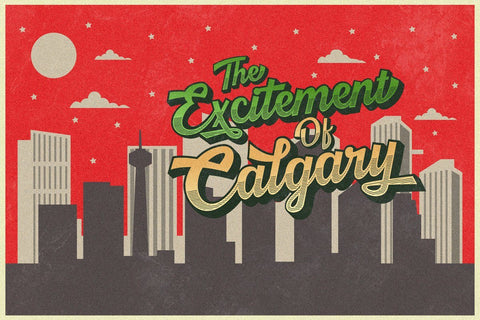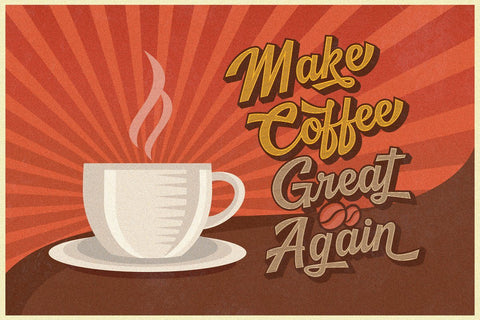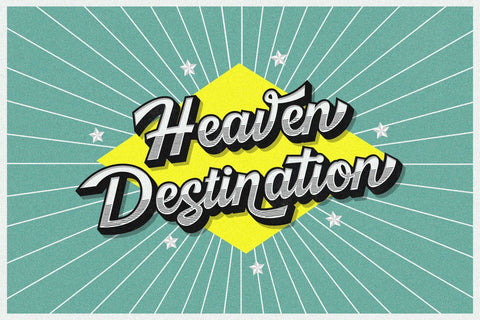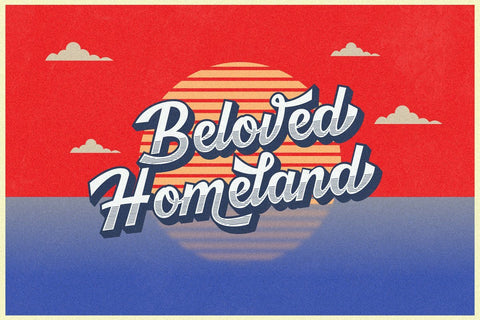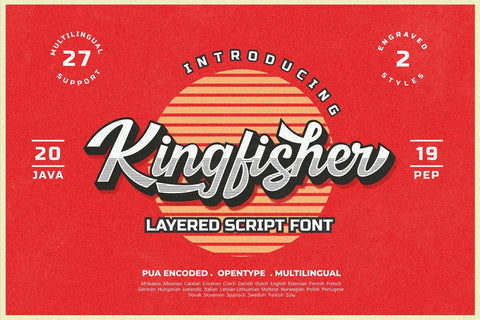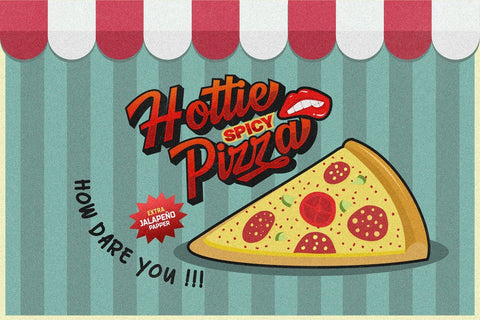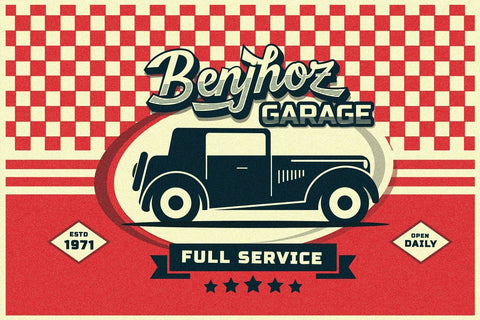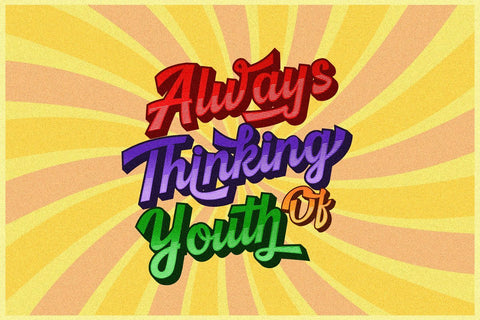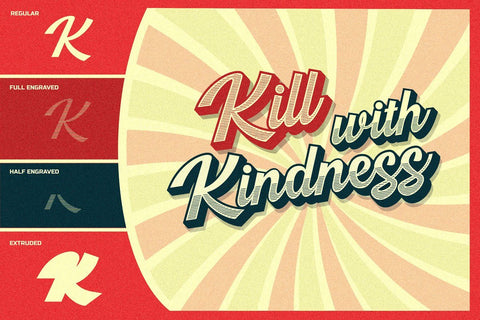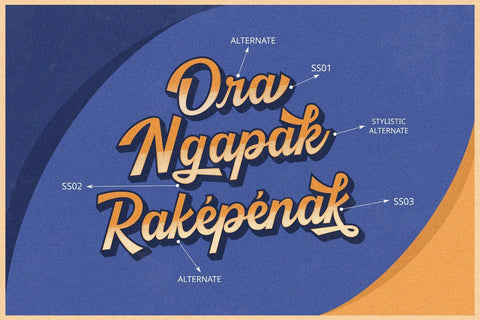
Kingfisher Layered Font
Kingfisher is the layered font that comes up with 2 styles engraved layer. You can save your times to mix and match the styles you need. Kingfisher font has 4 font family, regular, full engraved, half engraved, and extruded. This font is perfect for Logotype, flyer, poster, branding & identity, or application in mobile.